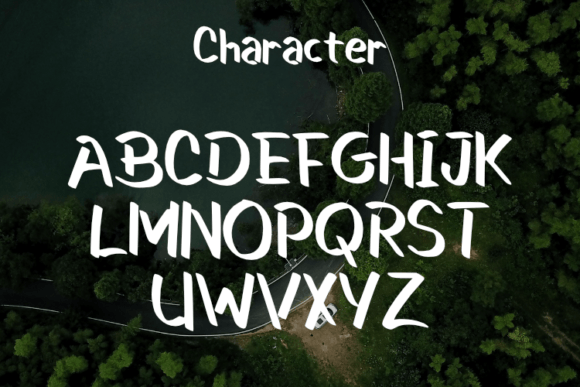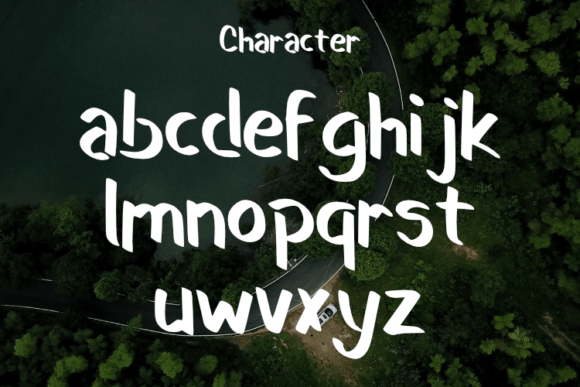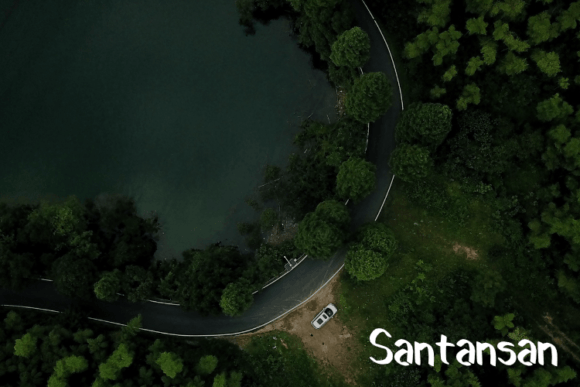
Santansan Font
About Santansan Font
“Santansan” is a script typeface that effortlessly blends simplicity with modernity. Its clean and straightforward style gives it a contemporary edge, making it an excellent choice for a wide range of design applications. Whether used for elegant and luxurious logos, book or movie design titles, fashion brands, magazines, clothing, fonts, quotes, or any other creative project, “Santansan” adds a touch of sophistication and refinement.
**Simple and Modern Design**: The simplicity of “Santansan” is one of its standout features. Its clean lines and uncluttered appearance create a modern aesthetic that aligns well with contemporary design trends. The font’s simplicity makes it versatile and adaptable to various design concepts, ensuring a seamless integration into different projects.
**Elegance and Luxury**: “Santansan” embodies elegance and luxury, making it ideal for high-end branding and sophisticated designs. Its sleek and polished letterforms add a touch of refinement, elevating the overall perception of the brand or project it represents. Whether used in fashion branding, upscale magazines, or luxurious products, the font exudes a sense of prestige and class.
**Versatility in Design Applications**: The versatility of “Santansan” makes it suitable for a wide array of design applications. From logos and titles to magazine layouts and quotes, the font adapts effortlessly to diverse creative contexts. Its modern look and elegant style enhance the visual impact of any project, ensuring a professional and stylish presentation.
**Timeless Appeal**: Despite its modern appearance, “Santansan” possesses a timeless quality that ensures its relevance across different time periods. Its classic yet contemporary design allows it to stand the test of time, making it a reliable choice for long-lasting and enduring designs.
In summary, “Santansan” is more than just a typeface; it’s a symbol of modern elegance and timeless style. Its simple yet sophisticated design, combined with its versatility, makes it a valuable asset for designers seeking to create elegant and luxurious visual experiences. By incorporating “Santansan” into your projects, you infuse them with a sense of refinement and class, ensuring they make a lasting impression on viewers. Let “Santansan” be the epitome of modern sophistication in your designs, adding an element of luxury to every creative endeavor it graces.